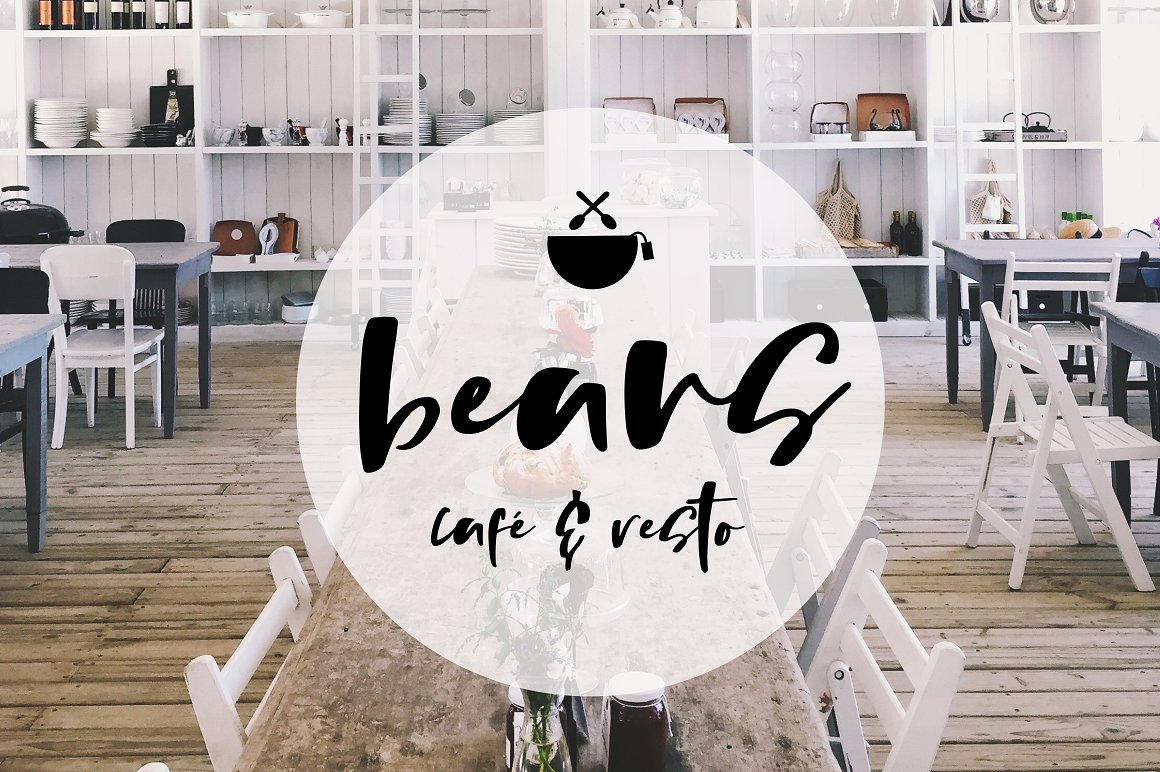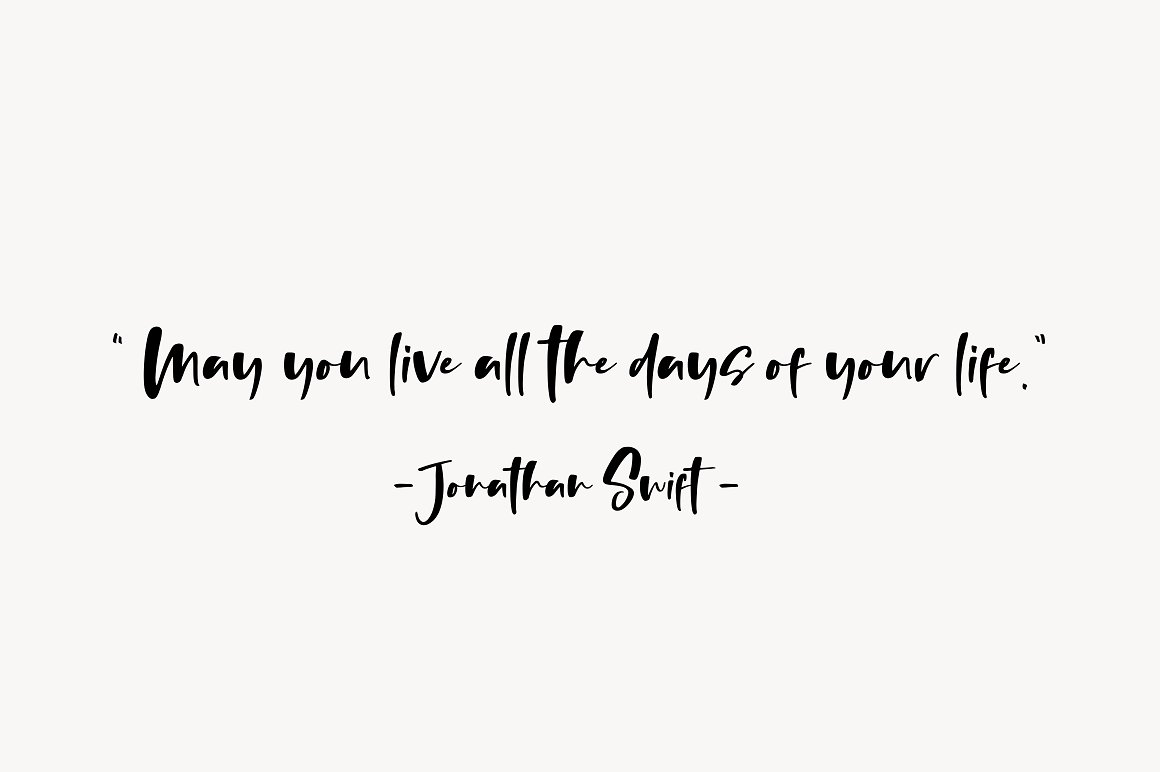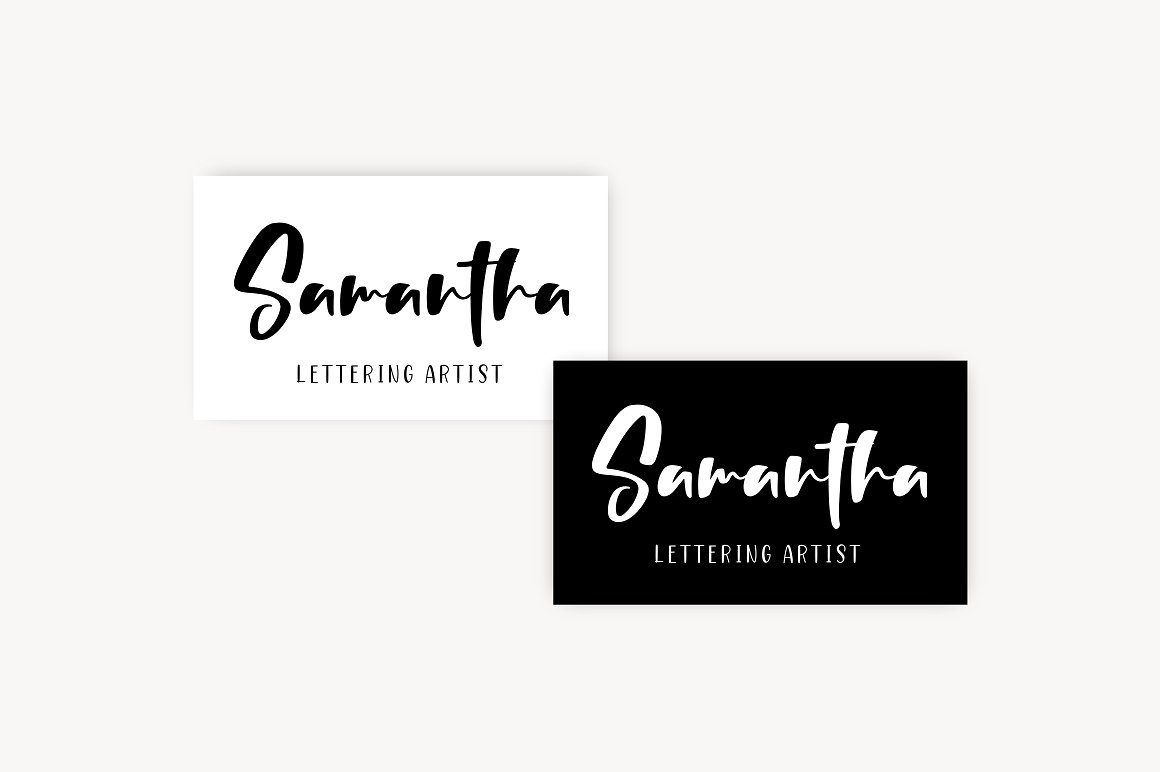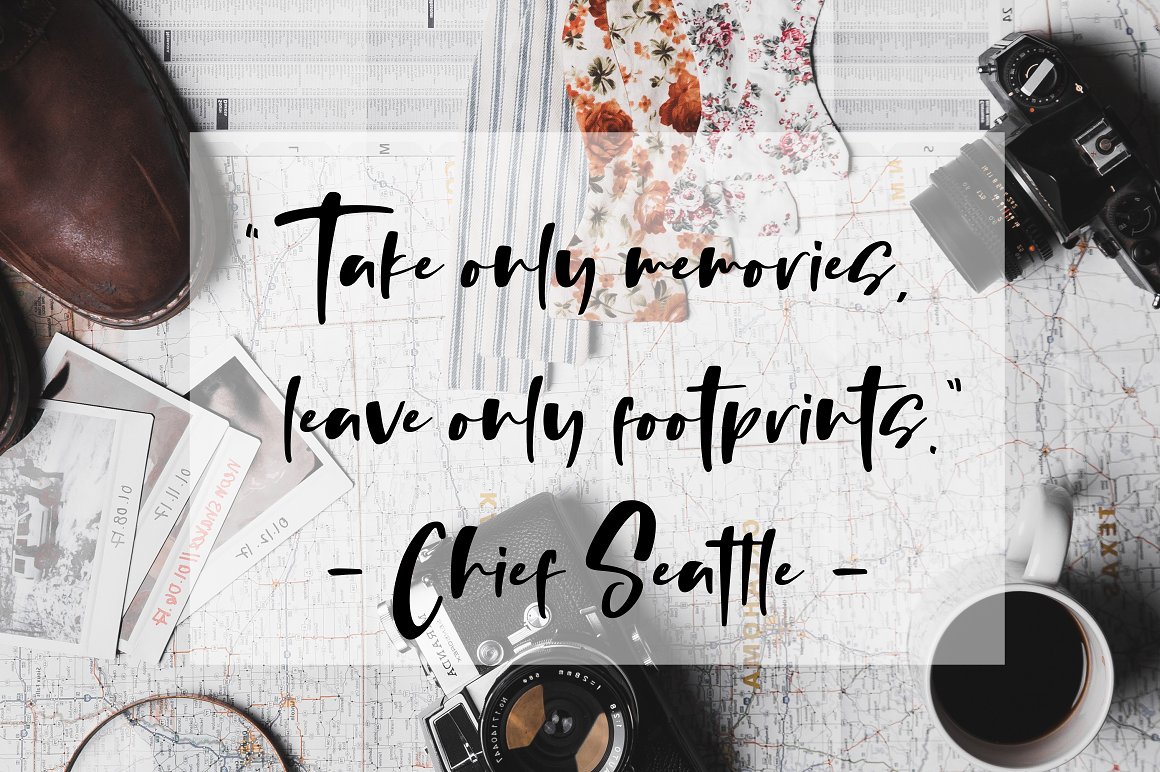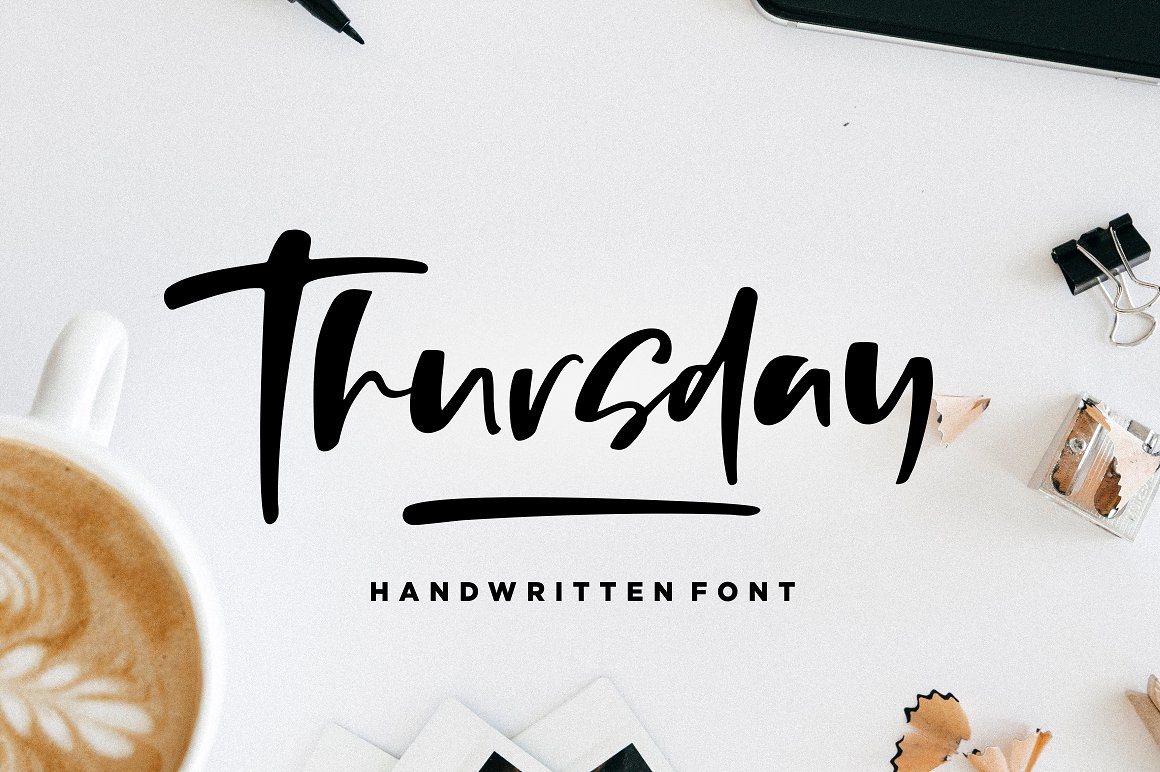
Thursday Vibes Brush Font
Hello Guys! a new handwritten font font by Sronstudio. A great font to use for all sorts of projects — from graphic design, to physical products! The possibilities are endless. Introducing Thursday Vibes Brush Font. Thursday Vibes is perfect for many different project such as logos & branding, invitation, stationery, wedding designs, social media posts, advertisements, product packaging, product designs, label, photography, watermark, special events or anything.